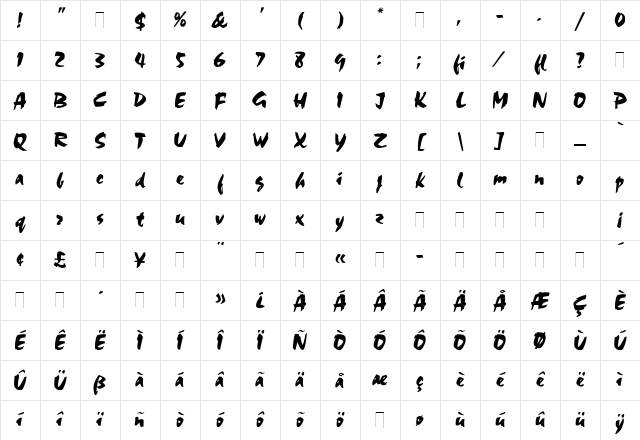
Choc Regular
Choc Family
Design Context for Choc
Choc is a composed and adaptable typeface that performs quietly and consistently across a wide range of design contexts.